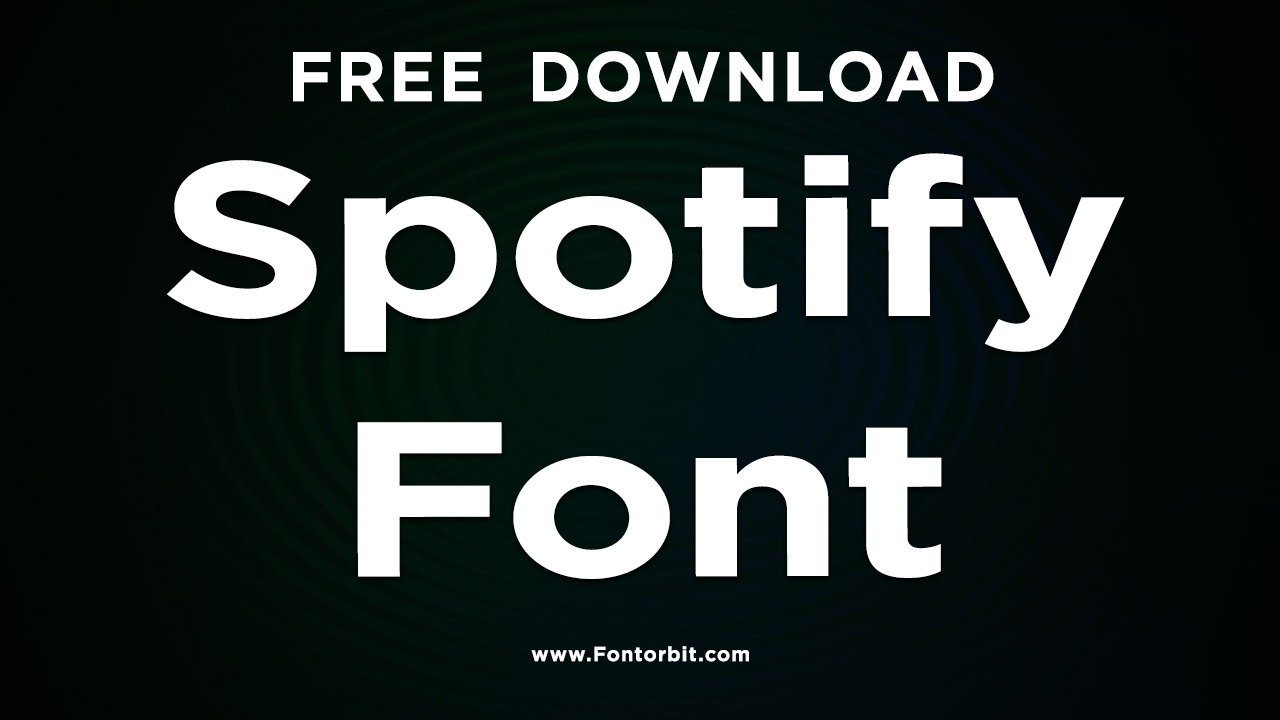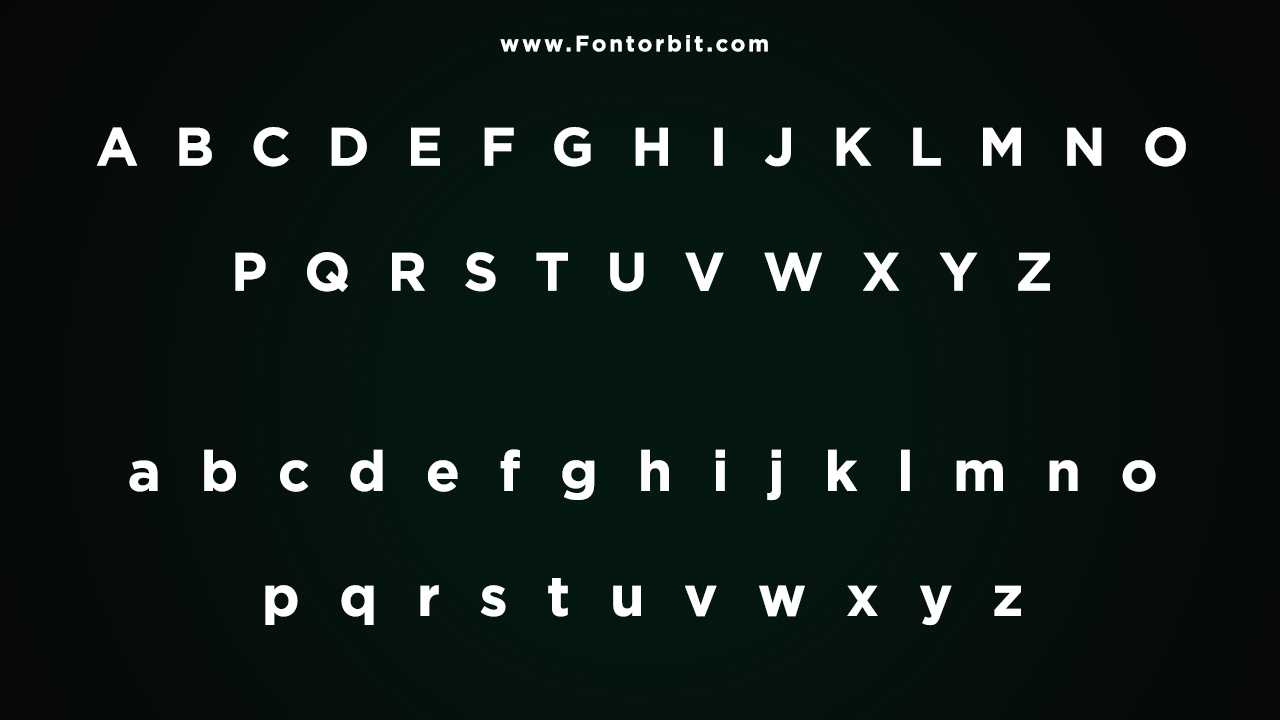
The Spotify Font, closely associated with the renowned music streaming service, captures a modern and geometric aesthetic. While Spotify uses a custom version of the Circular typeface, Circular Black is the closest public font to their design.
The Spotify Font, closely related to Circular, embodies a modern and geometric sans-serif style. Circular, created by Swiss designer Laurenz Brunner and released through Lineto in 2013, is the typeface most closely resembles the custom font used by Spotify.
The Spotify Font Family
Spotify uses a custom version of Circular, which Gotham heavily inspires. However, Spotify has never employed Gotham in their design.Circular, Brunner’s second official release after the acclaimed Akkurat, stands out for its geometric precision and distinctive quirks that add warmth and personality.
For example, the lowercase “t” in Circular is particularly recognizable, setting it apart from other geometric sans-serifs. Available in four weights, Circular provides a versatile and polished look that aligns with Spotify’s sleek branding.
The Spotify Font is perfect for projects that require a sleek, modern look. Its clean lines and geometric precision make it ideal for high-impact headlines, distinctive logos, and contemporary branding. It’s a versatile choice for various design needs, from digital interfaces to print media.
The Spotify Font, represented by Circular Black, reflects a modern, geometric aesthetic that aligns with Spotify’s branding. Its public version provides a similar look and can be easily incorporated into your design projects for a polished and professional finish.
1.What Is The Spotify Font?
The Spotify Font is closely represented by Circular Black, a typeface similar to the custom font used by Spotify, which is based on the Circular typeface.
2.What Fonts Are Similar To Spotify’s Font?
Fonts similar to Spotify’s typeface include Gotham, Metropolis, Avenir, Futura, and Proxima Nova.
3.What Are The Key Features Of The Spotify Font?
The font features a modern, geometric design, ideal for creating clean and impactful visuals.
4.How To Use The Spotify Font In Branding?
Use Circular Black or similar fonts to craft sleek logos, striking headlines, and contemporary branding materials that reflect a modern aesthetic.
5.What Are The Alternatives To The Spotify Font?
Similar fonts include Gotham, Metropolis, and other geometric sans-serifs like Avenir and Futura, offering comparable design characteristics.